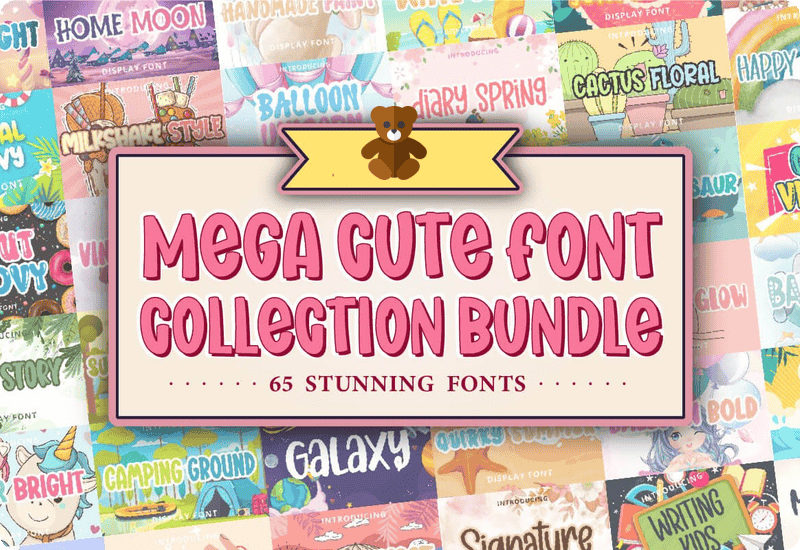
The Mega Cute Font Collection Bundle is a comprehensive and versatile font package designed to elevate any creative project. This incredible bundle, valued at $780, is now available for free, providing designers with 65 stunning fonts that cater to a wide range of styles and themes.
65 Premium Fonts included in this bundle:
- Writing Notes Fuentes Caligráficas Fuente
- Lemon Lover Skript-Schriftarten Schriftart
- Super Dinosaur Display Font
- Cactus Floral Display Font
- Galaxy Polices d’Affichage Police
- Signature Script & Handwritten Font
- Balloon Bold Display Font
- Christmas Bright Fuentes Display Fuente
- Summer Camping Display Font
- Super Bright Fontes de Exibição Fonte
- Cartoon Animals Fontes de Exibição Fonte
- Fathers Day Fuentes Display Fuente
- Baby Star Display Font
- Beauty Vibes Display Font
- Mother Smile Display Font
- Craft Rainbow Display Font
- Diary Spring Display Font
- Tropical Groovy Polices d’Affichage Police
- New Carnival Font Display Font
- Fairy Bright Display Font
- Camping Ground Display Font
- Hello Sunset Display Font
- Halloween Retro Display Font
- Vintage Story Display Font
- Teacher Ruler Display Font
- Wow Weekend Display Font
- Coffee Cream Display Font
- Game Vintage Display Font
- Alive Vocation Display Font
- Mama Life Display Font
- Handmade Script & Handwritten Font
- Life Family Script & Handwritten Font
- Handmade Paint Fuentes Display Fuente
- Hello Easter Display Font
- Flower Love Display Font
- Flower Stories Script & Handwritten Font
- Stay Beauty Display Font
- Morning Glow Display Font
- Magic Hopes Display Font
- Bright Sunflower Display Font
- Horror Vintage Display Font
- Home Moon Display Font
- Sweet July Display Font
- Balloon Unicorn Display Font
- Quirky Summer Display Font
- Happy Rainbows Display Font
- Donut Groovy Display Font
- Vibes Story Display Font
- Halloween Display-Schriftarten Schriftart
- Scary Nightmare Display Font
- Groovy Round Display Font
- Chibi Unicorn Display Font
- Snow Retro Display Font
- Groovy Bunny Display Font
- Super Today Display Font
- Star Jewel Display Font
- Milkshake Style Display Font
- Melody Rainbow Display Font
- Sister Soulmate Script & Handwritten Font
- Wave Toon Display Font
- Writing Kids Display Font
- Summer Jelly Display Font
- Handwritten Script & Handwritten Font
- Retro Dinosaur Display Font
- Princess Monday Display Font
Whether you’re creating playful children’s books, elegant wedding invitations, bold advertising campaigns, or seasonal promotions, this collection has the perfect font to suit your needs.
Diverse Font Styles for Every Project
Whether you’re working on a playful children’s book, an elegant wedding invitation, or a bold advertising campaign, the Mega Cute Font Collection has you covered.
From whimsical display fonts like Super Dinosaur Display Font and Cactus Floral Display Font to elegant script fonts such as Signature Script & Handwritten Font, this bundle offers a wide range of styles to suit any creative need.
Each font is meticulously crafted to ensure high quality and versatility, making your designs stand out.
Perfect Fonts for Special Occasions
Capture the essence of any celebration with themed fonts that add a personal touch to your designs.
The Mega Cute Font Collection includes special occasion fonts like Christmas Bright Fuentes Display Fuente and Halloween Retro Display Font, perfect for holiday cards, event invitations, and seasonal promotions.
Fonts like Mother’s Smile Display Font and Father’s Day Fuentes Display Fuente help you create heartfelt messages for your loved ones, making every occasion memorable.
Enhance Your Brand Identity
Your brand deserves a unique and recognizable identity, and the Mega Cute Font Collection can help you achieve that.
Fonts like Beauty Vibes Display Font and Tropical Groovy Polices d’Affichage Police bring a distinctive flair to your branding materials, ensuring your brand stands out in a crowded market.